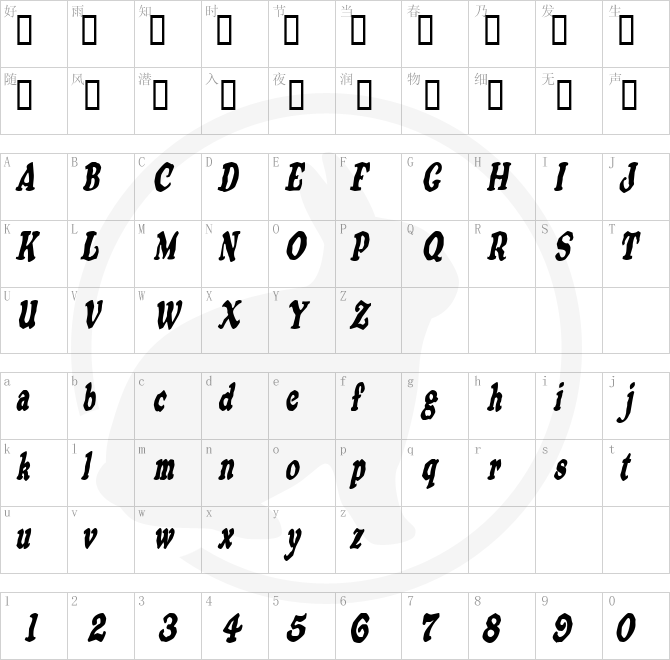
- Font Name:OatmealCondensed
OatmealCondensed-Italic.ttf is a very beautiful artistic font, OatmealCondensed-Italic.ttf is widely used in the design and printing of various books and pictures,OatmealCondensed-Italic.ttf has a strong visual impact,OatmealCondensed-Italic.ttf is a commonly used font in newspapers, magazines and books, and is used in posters, e-commerce Poster design, store design, logo design, font design and other fields.OatmealCondensed-Italic.